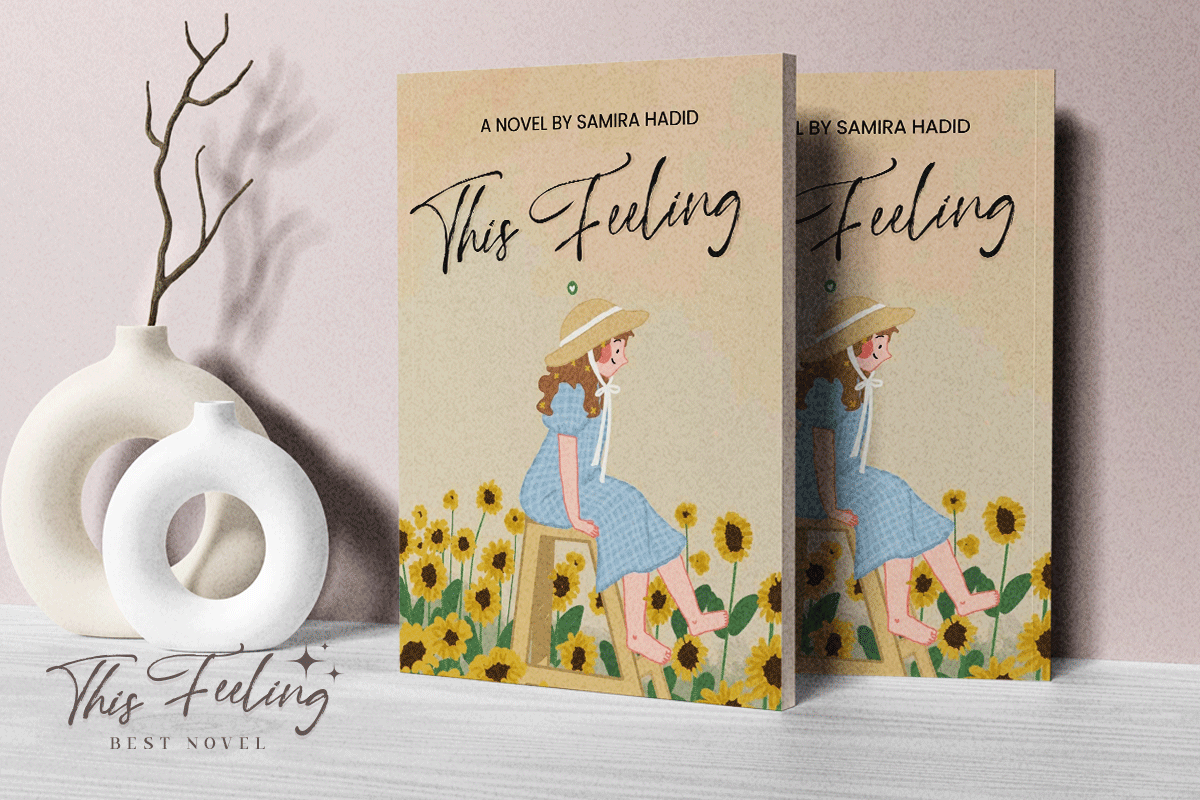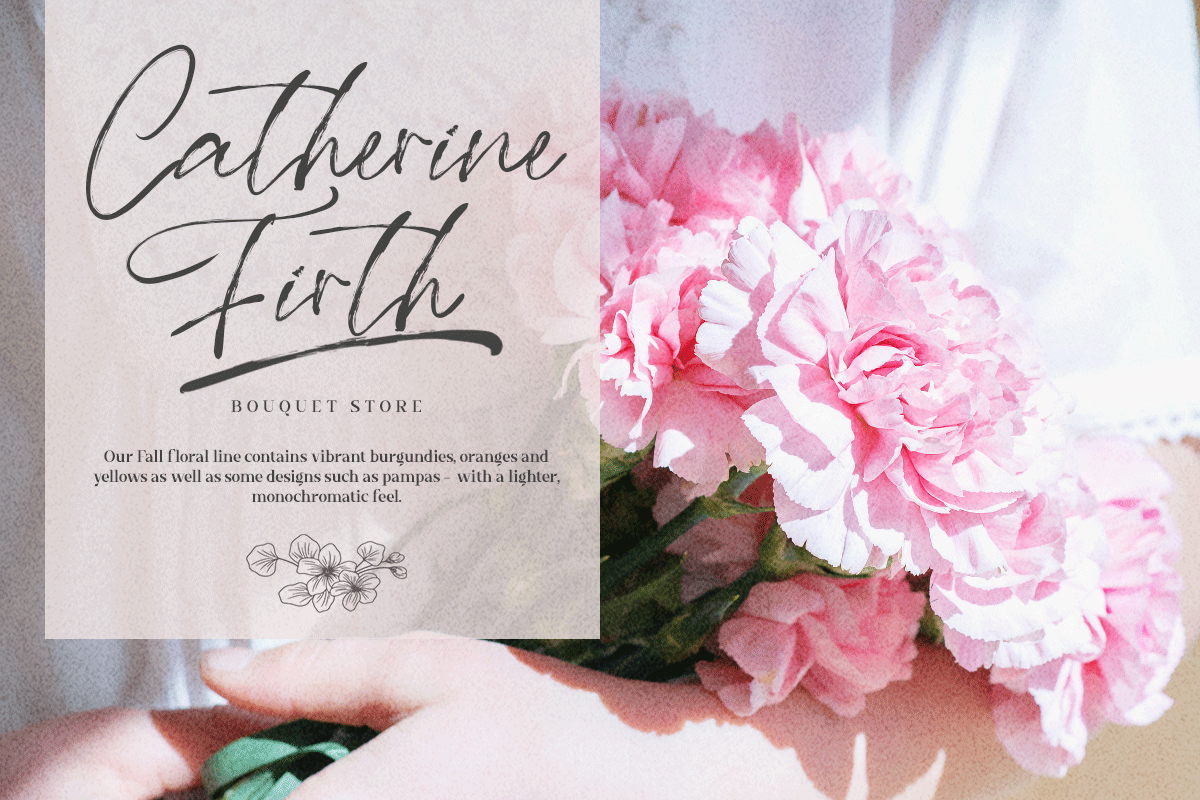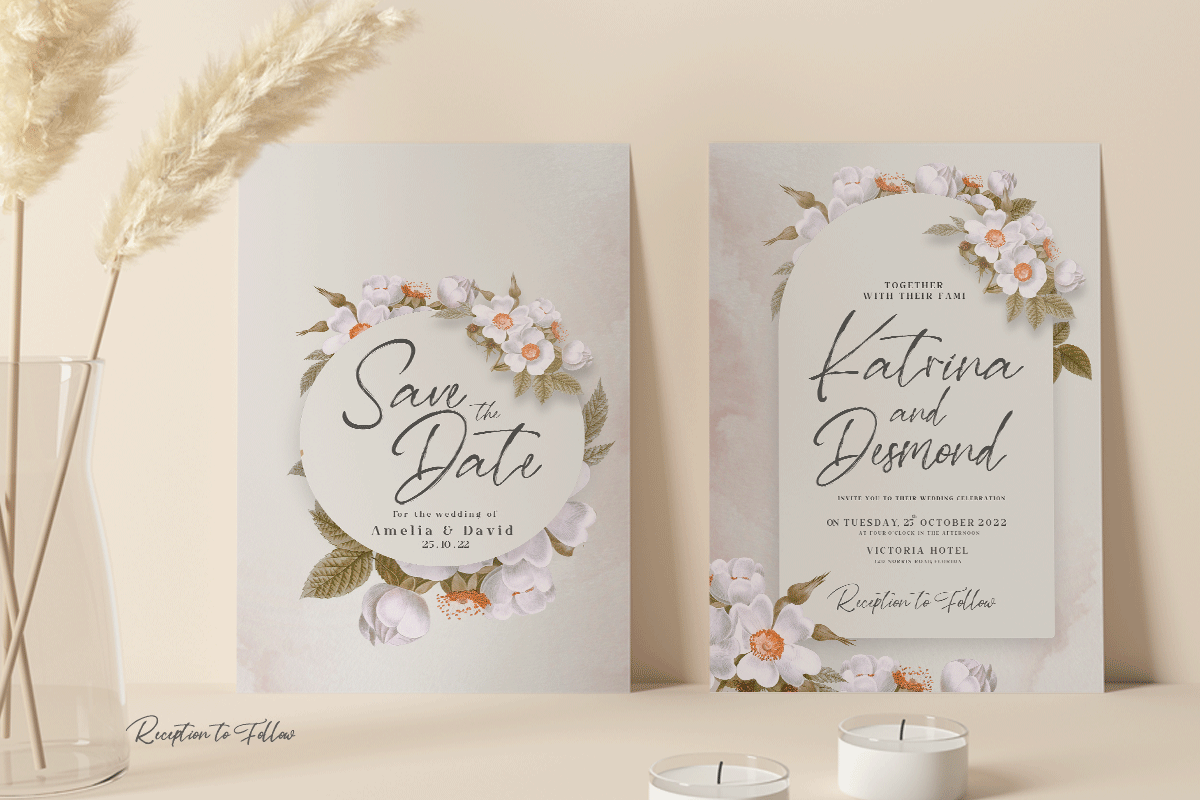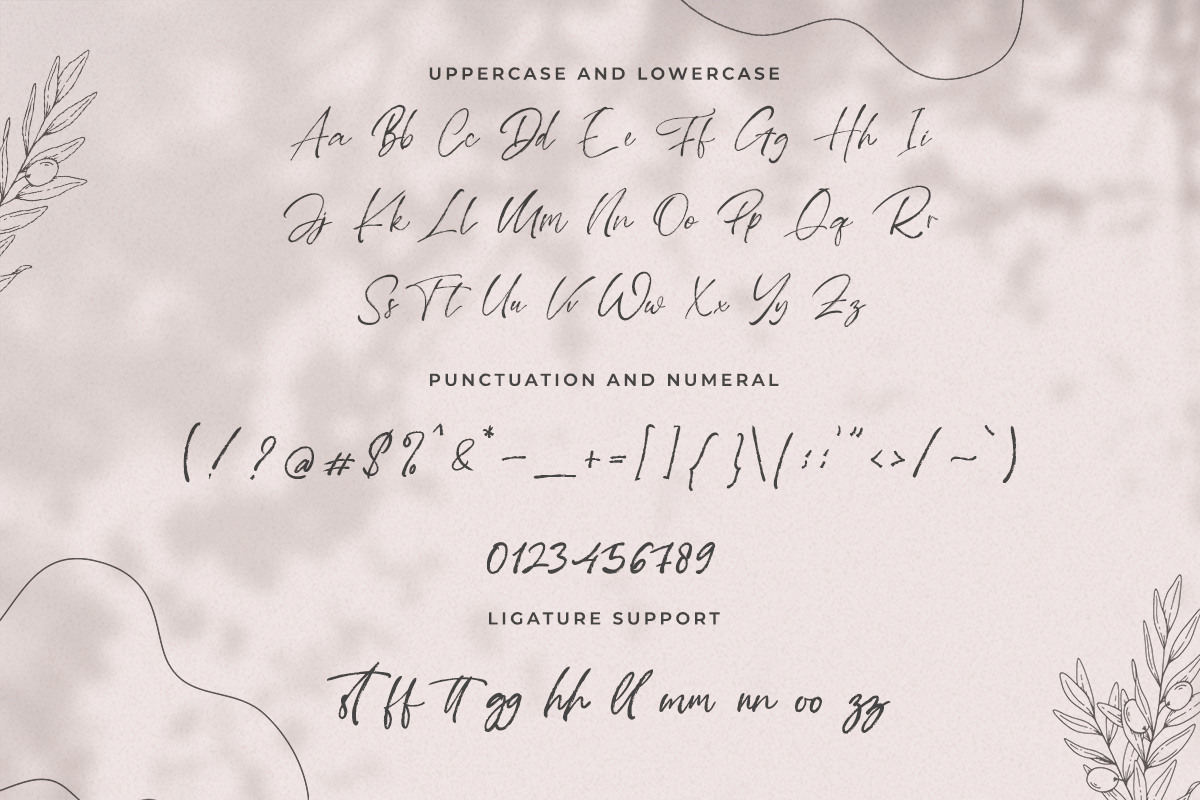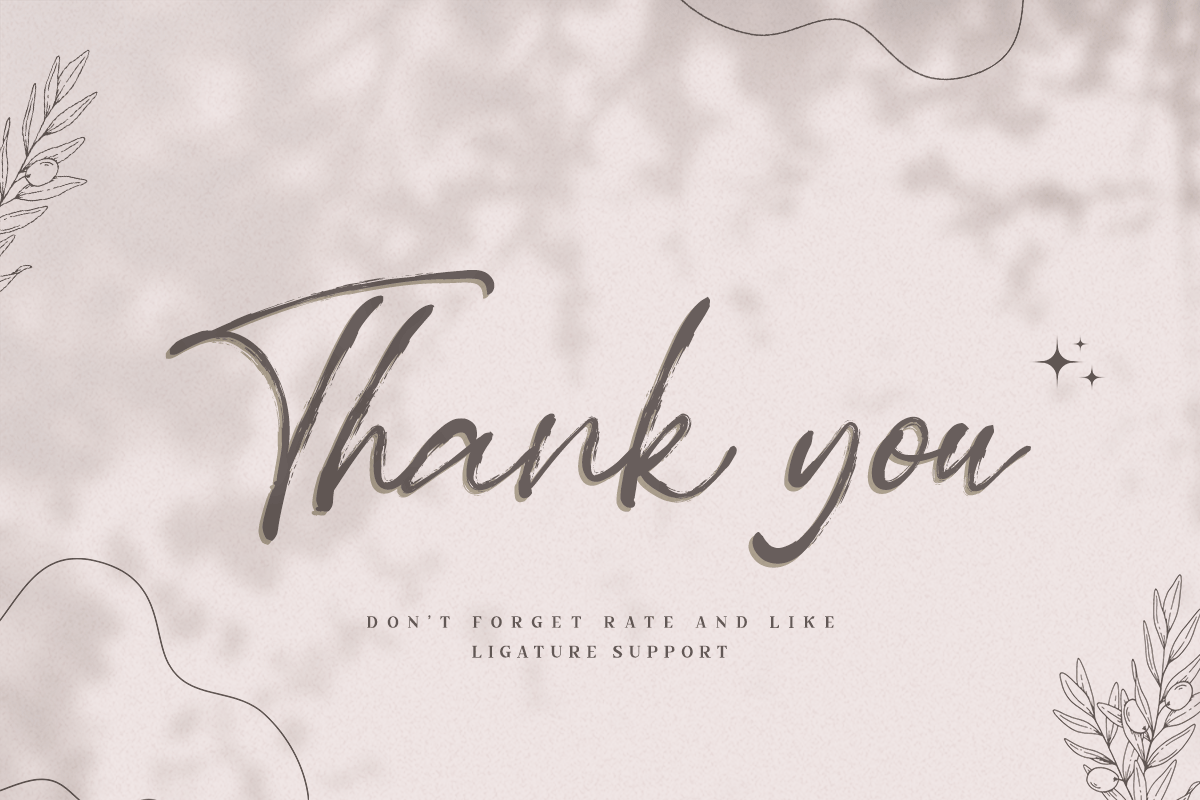
Whistney Handwritten Brush Font Beautiful fonts are not created just like that. Whistney Handwritten Brush & script font comes as proof that fonts can emit their aura. Whistney font is part of the Script & Signature fonts. This font is buid in a beautiful shape. We can see how this letter is created from a very aesthetic curve. It is written with a small brush, and several letters are connected in the writing. The appearance Whistney font makes it combined with objects that want to convey the impression of being simple, elegant, and at the same time luxurious. Something like wedding party supplies will look even cuter when teamed with Whistney font. This font is also very suitable for use as the cover of a book or novel. It is very suitable if Whistney is called one of the aesthetic fonts. From the description of the characteristics and uses above, it can be concluded that Whistney font is an illegible font. This font is very suitable when used with medium and small font sizes. If printed in large size and viewed from a distance, it will not be easy to read and understand.